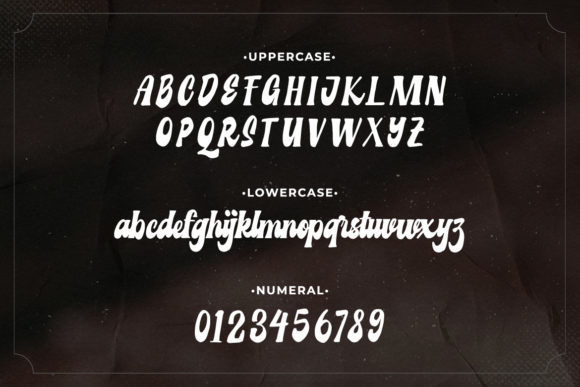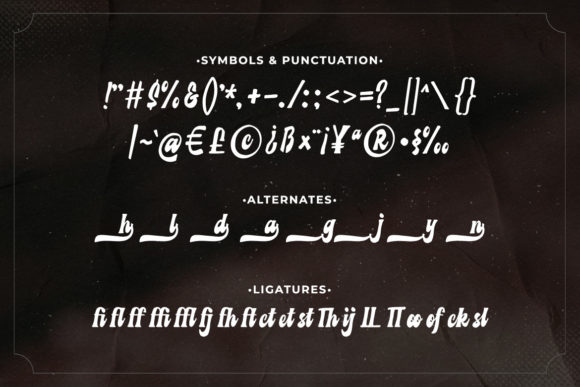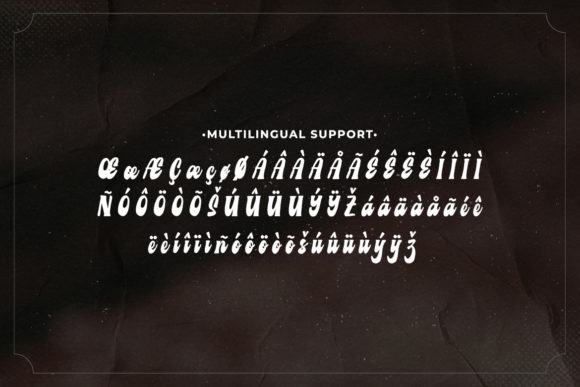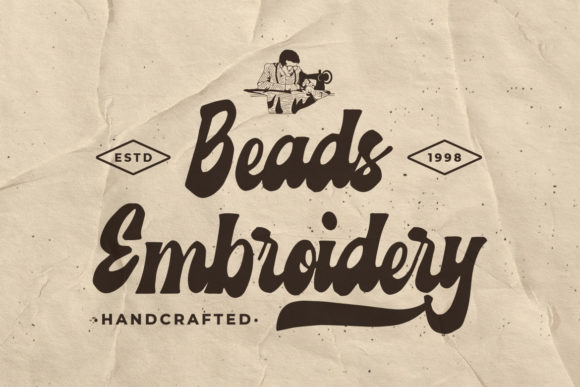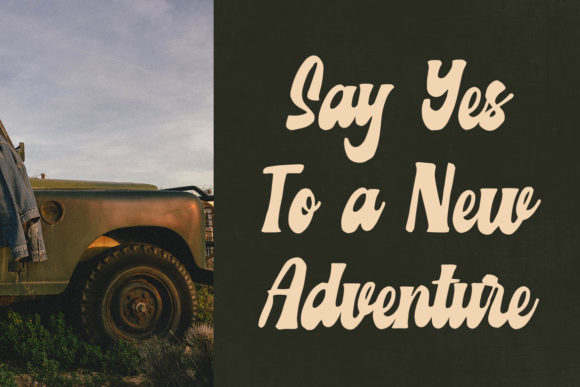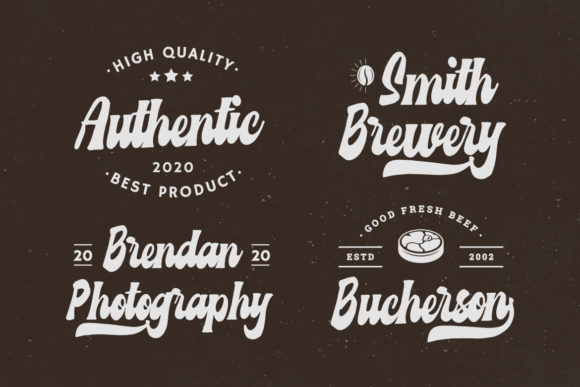
Introducing Authentique Font: Add a Retro Touch to Your Designs
Are you looking for a font that can add a touch of nostalgia and sophistication to your designs? Look no further than Authentique Font, a gorgeous and bold handwritten font that’s perfect for headlines, logotypes, and more. In this article, we’ll dive into the features and benefits of Authentique Font, and explore how it can elevate your design projects.
A Retro-Inspired Font with a Strong Personality
Authentique Font is a bold and confident handwritten font that’s crafted to give your designs a retro touch. With its strong and dynamic letterforms, this font reads as powerful and eye-catching, making it perfect for headlines, titles, and logotypes. Whether you’re designing a logo, brochure, or website, Authentique Font is sure to make a statement.
Key Features of Authentique Font
- Handwritten Style: Authentique Font has a beautiful handwritten style that’s perfect for adding a personal touch to your designs. The font’s letterforms are bold and expressive, with a sense of movement and energy.
- Retro Aesthetic: Authentique Font has a distinctly retro aesthetic that’s perfect for designers who want to add a touch of nostalgia to their designs. The font’s bold lines and classic letterforms evoke a sense of timelessness and sophistication.
- Dynamic and Confident: Authentique Font reads as strong, confident, and dynamic, making it perfect for headlines and titles. The font’s bold letterforms are sure to grab attention and make a lasting impression.
How to Use Authentique Font in Your Designs
Authentique Font is a versatile font that can be used in a wide range of design projects, from logos and brochures to websites and social media graphics. Here are a few ideas for using Authentique Font in your designs:
- Logos and Branding: Use Authentique Font to create a bold and eye-catching logo that’s sure to make a lasting impression. The font’s retro aesthetic and handwritten style make it perfect for brands that want to add a touch of nostalgia and sophistication to their branding.
- Headlines and Titles: Authentique Font is perfect for headlines and titles, where its bold and dynamic letterforms can really make an impact. Use the font to add a touch of drama and excitement to your designs.
- Posters and Flyers: Authentique Font is a great choice for posters and flyers, where its bold and eye-catching letterforms can really stand out. Use the font to create a striking design that’s sure to grab attention.
Tips for Getting the Most Out of Authentique Font
Here are a few tips for getting the most out of Authentique Font:
- Experiment with Different Sizes: Authentique Font looks great in a wide range of sizes, from small and subtle to large and bold. Experiment with different sizes to find the one that works best for your design.
- Play with Color: Authentique Font looks great in a wide range of colors, from bold and bright to muted and pastel. Experiment with different colors to find the one that works best for your design.
- Combine with Other Fonts: Authentique Font can be combined with other fonts to create a unique and eye-catching design. Try pairing it with a sans-serif font for a bold and modern look.
Authentique Font is a gorgeous and bold handwritten font that’s perfect for designers who want to add a touch of nostalgia and sophistication to their designs. With its strong and dynamic letterforms, retro aesthetic, and PUA encoding, this font is sure to make a lasting impression. Whether you’re designing a logo, brochure, or website, Authentique Font is a great choice for adding a touch of elegance and refinement to your designs.